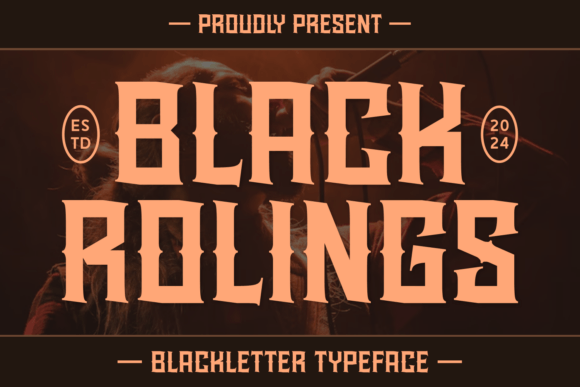
The Power of Black Rolings Font: A Designer’s Best Friend
I’ll never forget the time I was working on a vintage-themed poster project, and I just couldn’t find the right font to give it that authentic, old-world feel. My client was specific about wanting something bold, yet elegant, and I was determined to deliver. That’s when I stumbled upon Black Rolings Font, and it was love at first sight! 💕
With its thick lines, sharp edges, and classic Gothic feel, Black Rolings Font instantly added a touch of sophistication and drama to my design. It was exactly what I needed to make my project stand out. In this article, I’ll share my honest review of Black Rolings Font, provide a practical guide on how to use it, and explore similar fonts that might tickle your fancy.
- ✅ Bold and eye-catching: Black Rolings Font is perfect for headlines, posters, or any design where you want to make a statement.
- ✅ Elegant and sophisticated: Despite its bold nature, the font has a refined, classic feel that adds a touch of elegance to any text.
- ✅ Easy to read: Even at smaller sizes, Black Rolings Font remains clear and legible, making it versatile for various design applications.
- ✅ Simple yet striking: The font’s simplicity is part of its charm, making it easy to pair with other design elements.
- ⚠️ Limited use in body text: Due to its bold nature, Black Rolings Font might not be the best choice for lengthy body text. It’s best used for headlines or short paragraphs.
- ⚠️ May not be suitable for digital screens: While it looks amazing in print, Black Rolings Font might appear too bold or pixelated on digital screens, depending on the resolution and size.
If you love Black Rolings Font, you might also enjoy these similar fonts:
- Fraktur: A classic Gothic font with intricate details and a medieval feel. Use it for historical or mystical designs.
- Old English Text: A traditional blackletter font with a more ornate, cursive feel. Perfect for formal or vintage-inspired designs.
- Textur: A bold, textured font with a rough, Gothic-inspired look. Great for adding a distressed or worn feel to your designs.
- K Gothic: A modern take on traditional Gothic fonts, with clean lines and a bold personality. Use it for contemporary designs that still require a touch of elegance.
The Designer Inspiration Behind Black Rolings Font
Black Rolings Font was inspired by traditional Gothic architecture and the classic blackletter fonts of the Middle Ages. Its designer aimed to create a font that would evoke a sense of history and sophistication, while still being bold and eye-catching. The result is a font that’s both elegant and dramatic, perfect for adding a touch of old-world charm to your designs.
Q: What type of designs is Black Rolings Font best suited for?
A: Black Rolings Font is perfect for headlines, posters, vintage designs, and any project where you want a bold, yet elegant look.
Q: Is Black Rolings Font suitable for digital screens?
A: While Black Rolings Font looks great in print, it may not be the best choice for digital screens, depending on the resolution and size.